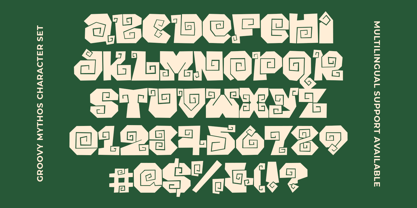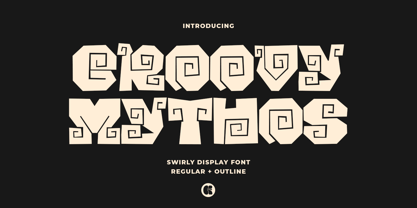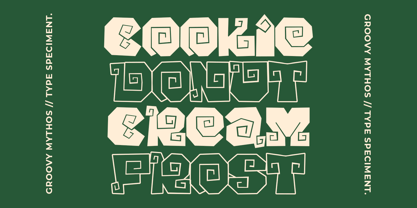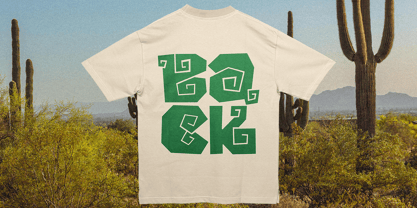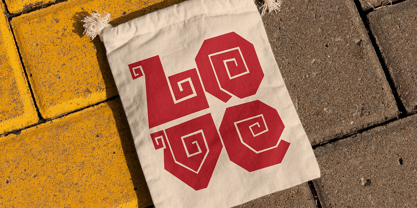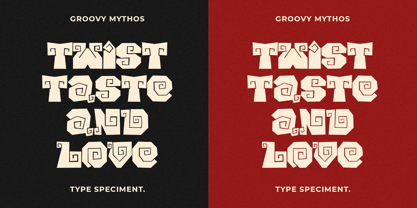
Groovy Mythos
by Groovy Font
The Groovy Mythos Font Family was designed by Ahmad Ginanjar Riyadi and published by Groovy Font. Groovy Mythos contains 2 styles and family package options. More about this family
Groovy Mythos is a striking display font that effortlessly combines swirly elements with a bold, tropical flair.
The swirling design of the font exudes a sense of movement and whimsy, while its boldness adds a touch of tropical paradise vibes.
Perfect for projects that aim to capture a lively, energetic spirit with a touch of mystery and allure.
This font comes in two types: regular and outline!
- Uppercase, Lowercase, Numeral, Punctuation & Multilingual.
Designers: Ahmad Ginanjar Riyadi
Foundry: Groovy Font